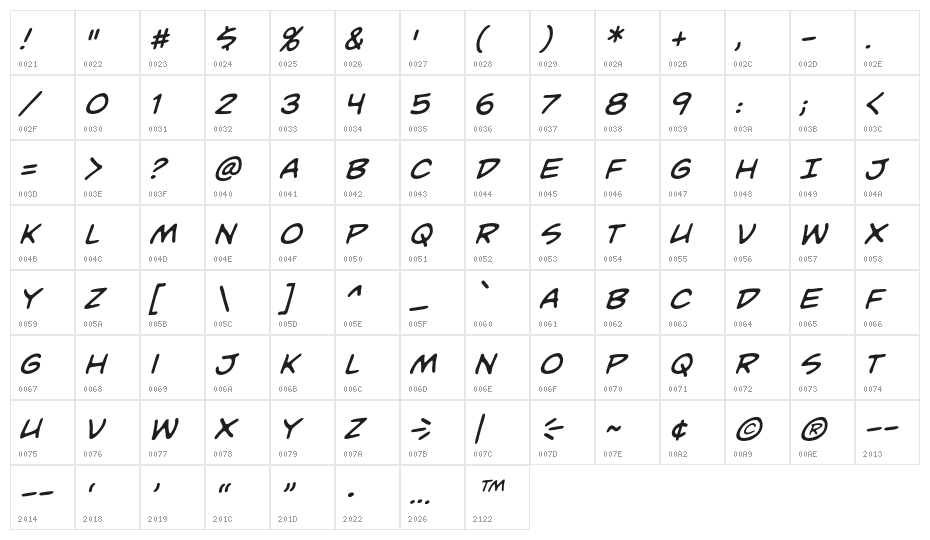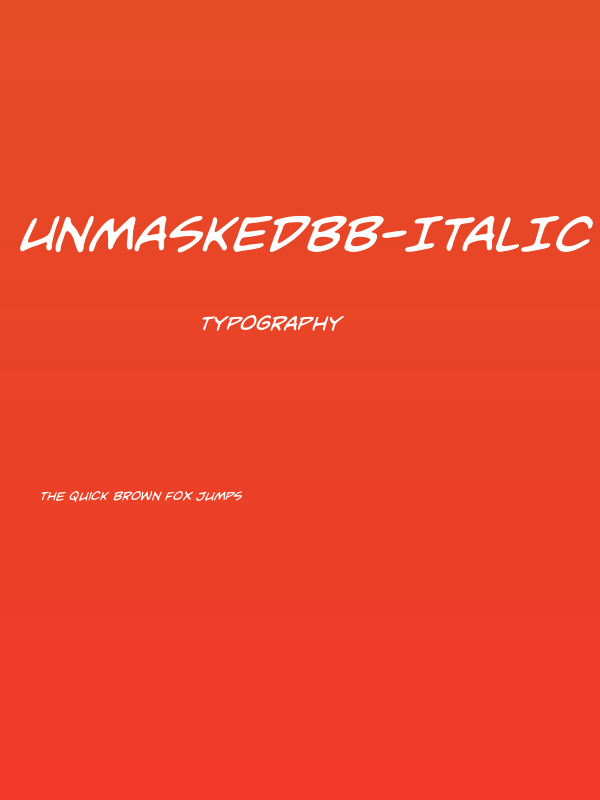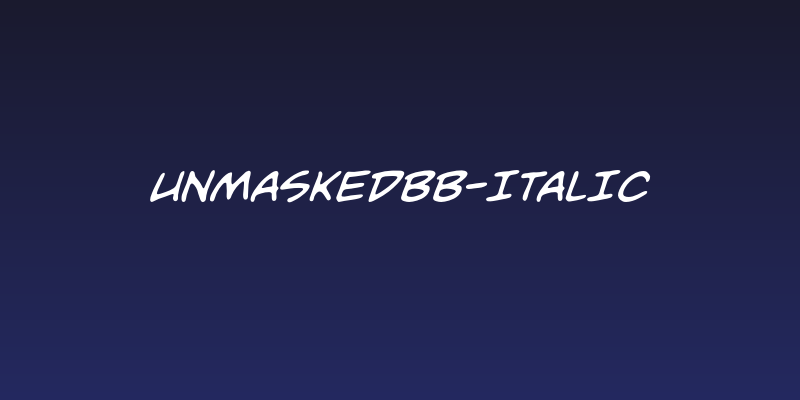
UnmaskedBB-Italic Font
UnmaskedBB-Italic Description
This font features a dynamic and energetic style, characterized by its italicized, handwritten appearance. The letters are slightly slanted, giving a sense of motion and fluidity. The strokes are bold and consistent, with rounded edges that add a friendly and approachable feel. The spacing between characters is moderate, ensuring readability while maintaining the font's lively character. The numbers and special characters are designed to match the playful yet professional aesthetic, making it versatile for various uses.
| Proposed Projects | Ideal for branding projects, logos, posters, and social media graphics where a personal and energetic touch is desired. |